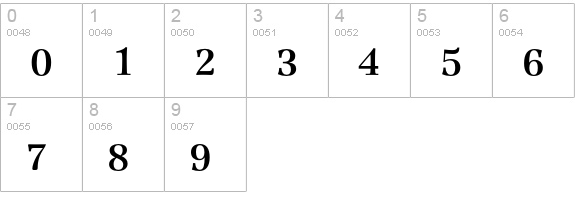
JamilleEF-Bold Font Details
JamilleEF-Bold is a strong, high-contrast variant in the JamilleEF typeface family \xE2\x80\x94 well suited to headlines, attention-grabbing titles, and strong calls-to-action.
JamilleEF-Bold is a striking and modern font that exudes confidence and strength. Its bold and sleek letterforms make it perfect for headlines, titles, and attention-grabbing designs. This font effortlessly captures attention and demands to be noticed. With its clean lines and elegant curves, JamilleEF-Bold adds a touch of sophistication to any project. Whether you're designing a logo, creating a poster, or crafting a website, this font is sure to make a lasting impression. One of the best things about JamilleEF-Bold is that it is available for free. That's right, you can download this incredible font at no cost at FontsMarket.com. This means that you can enhance your designs and elevate your creativity without breaking the bank. So why wait? Embrace the power of JamilleEF-Bold and take your designs to the next level. Download this font today and let your creativity soar.